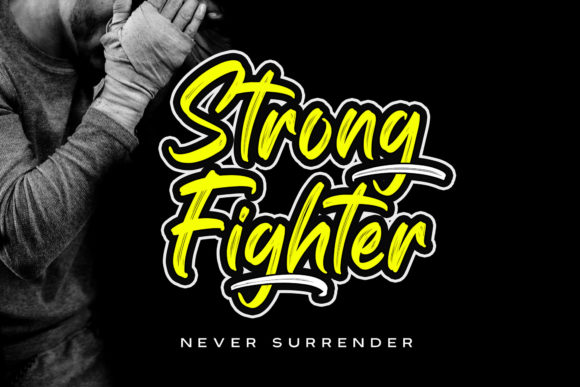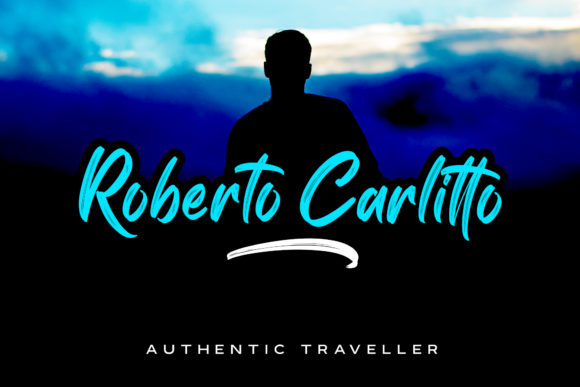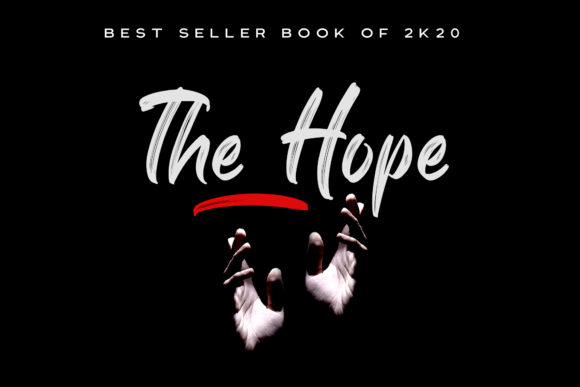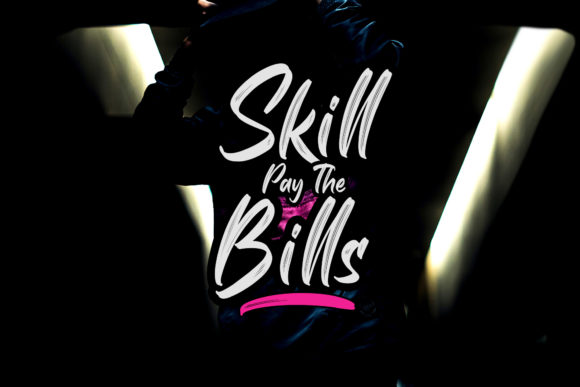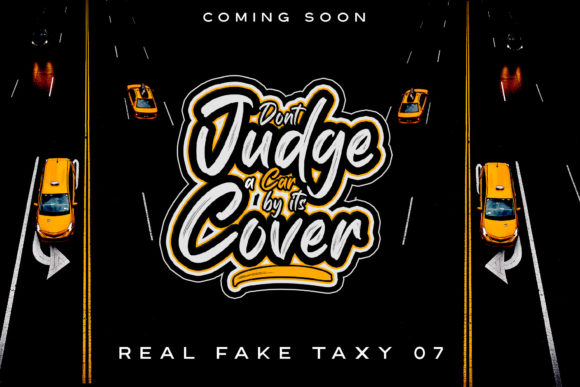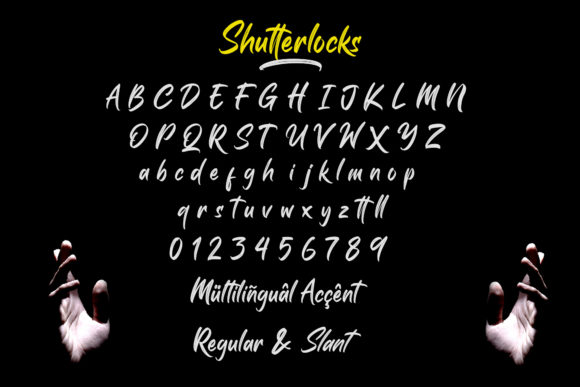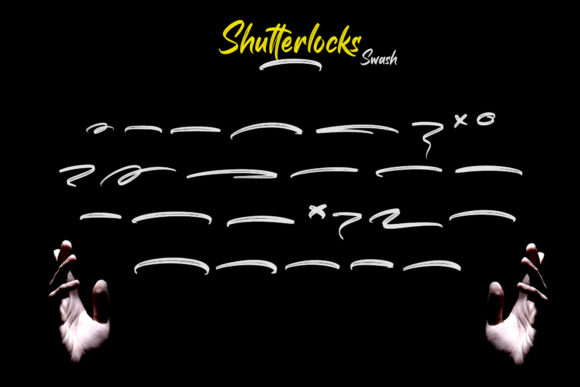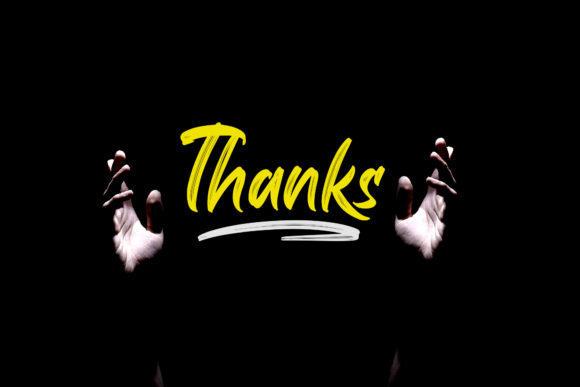
Shutterlocks Font
About Shutterlocks Font
Shutterlocks is an incredibly distinct, delicate and timeless handwritten font. It looks stunning on wedding invitations, thank you cards, quotes, greeting cards, logos, business cards and every other design which needs a handwritten touch.